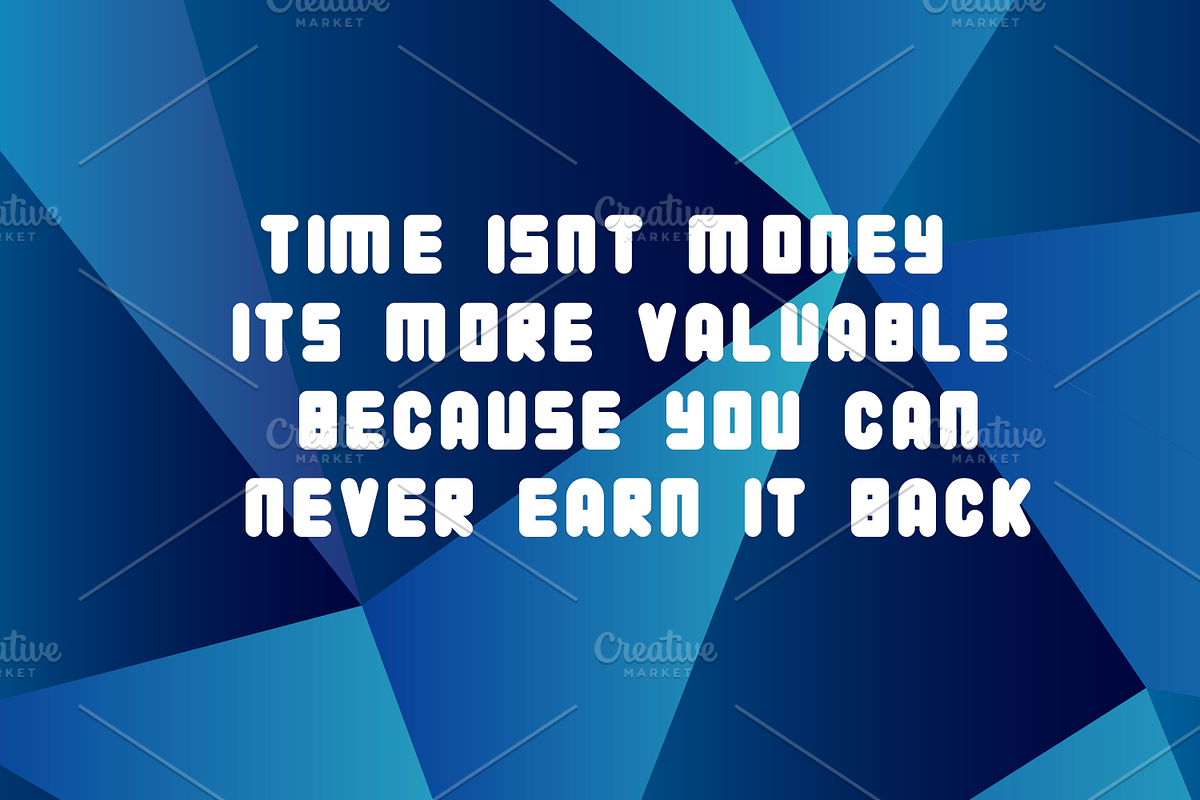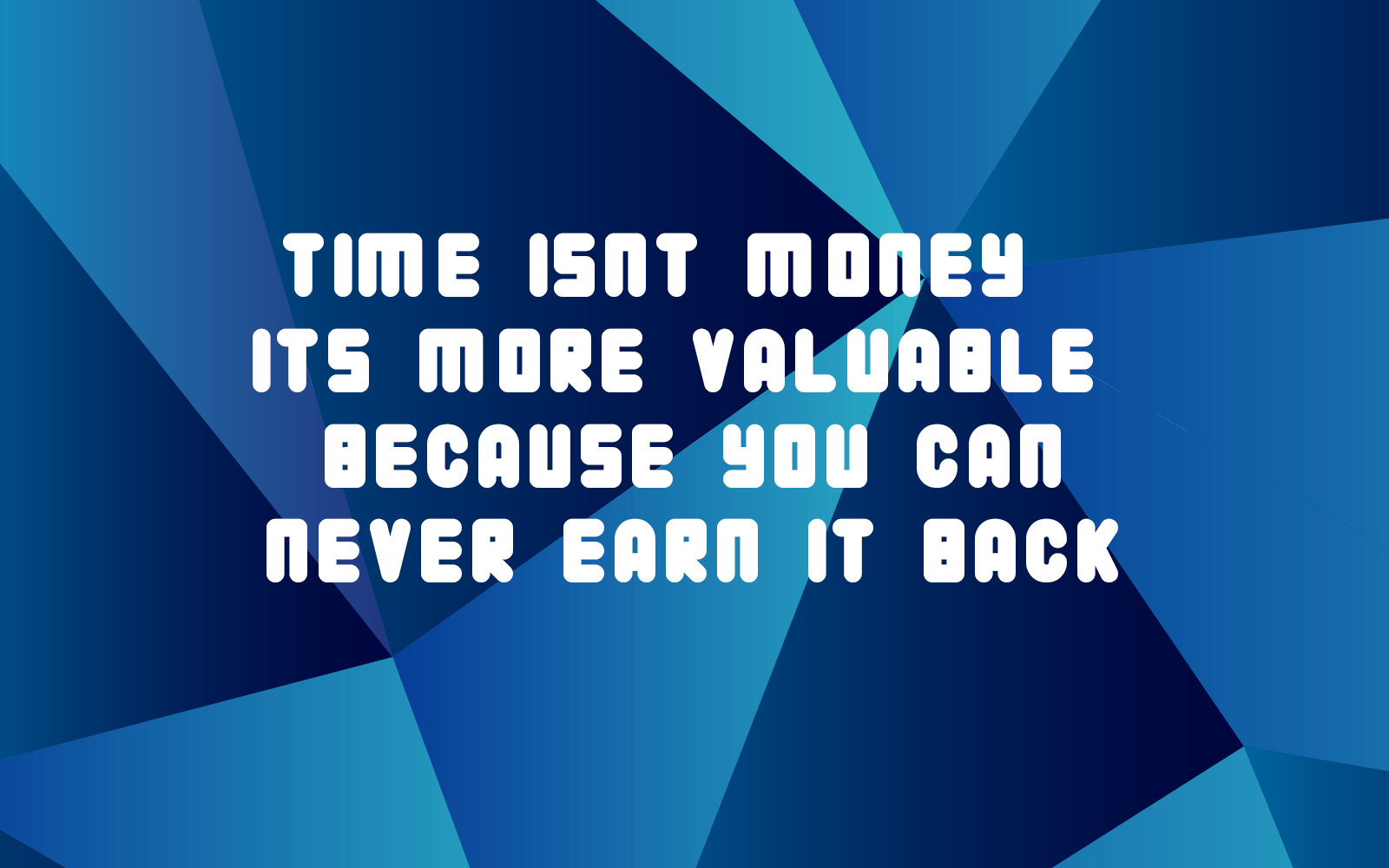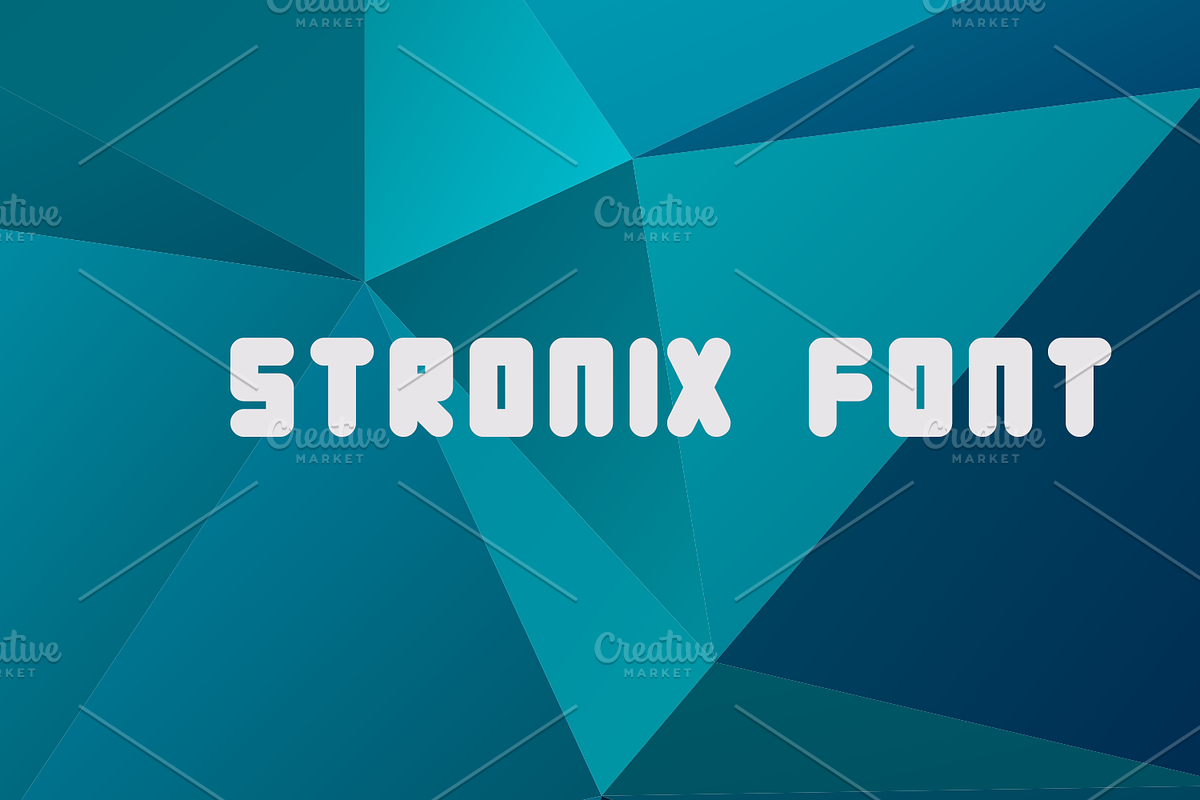
Meet Stronix – the font that doesn’t just speak, it resonates.
With its bold presence and modern elegance, it gives your headlines and logos the voice of confidence.
Perfect for brands that want to stand out and communicate clearly, stylishly, and powerfully.
Stronix – because every message deserves to be heard.